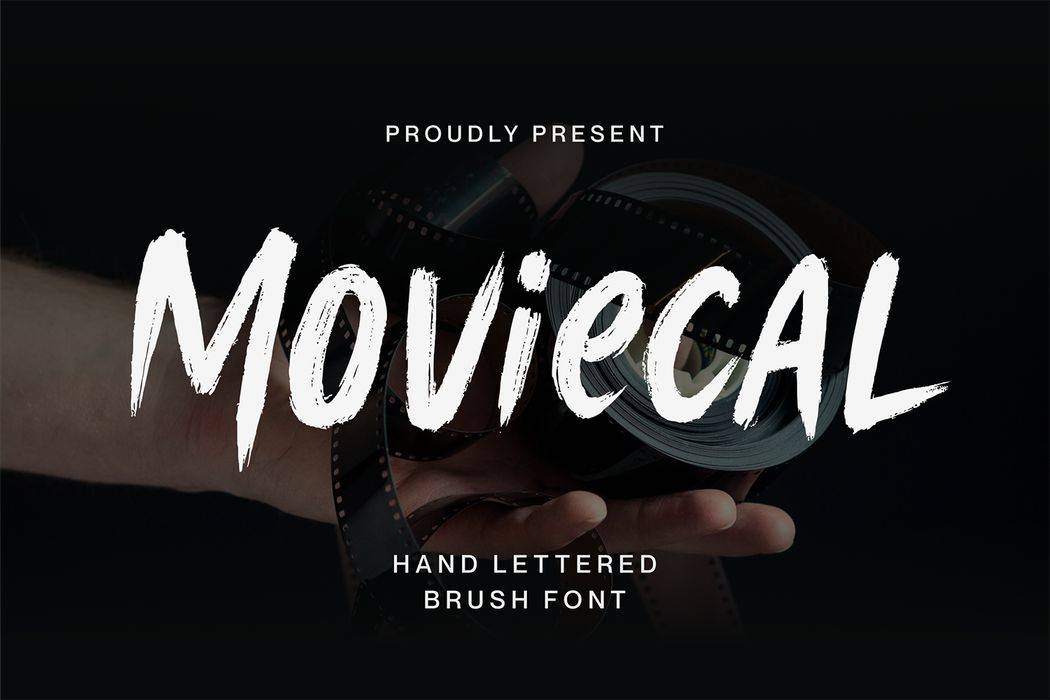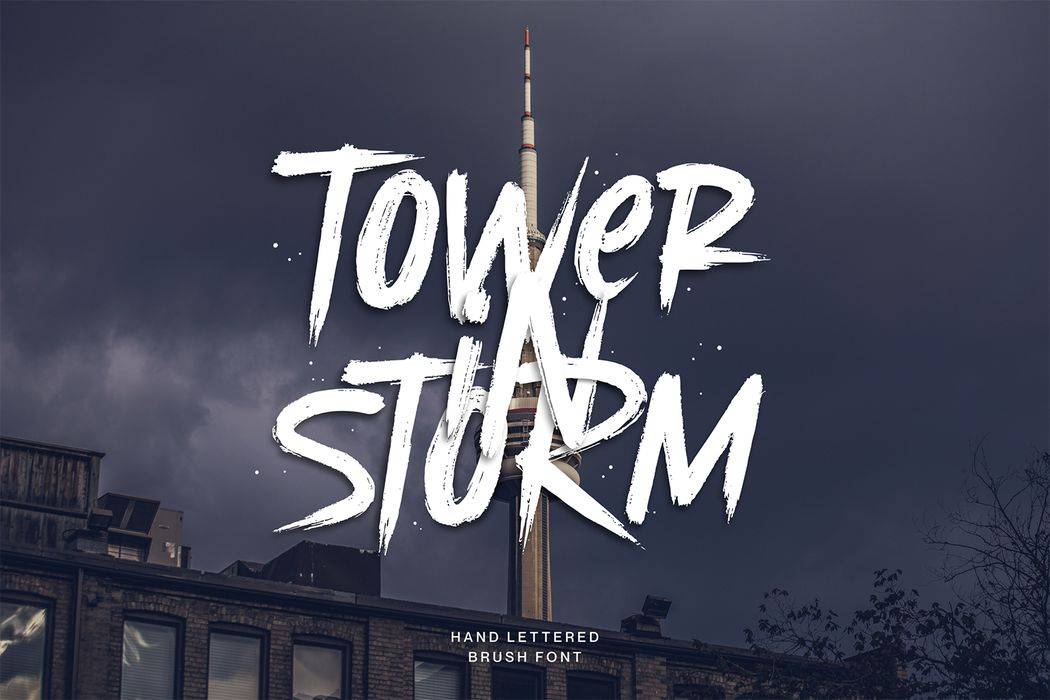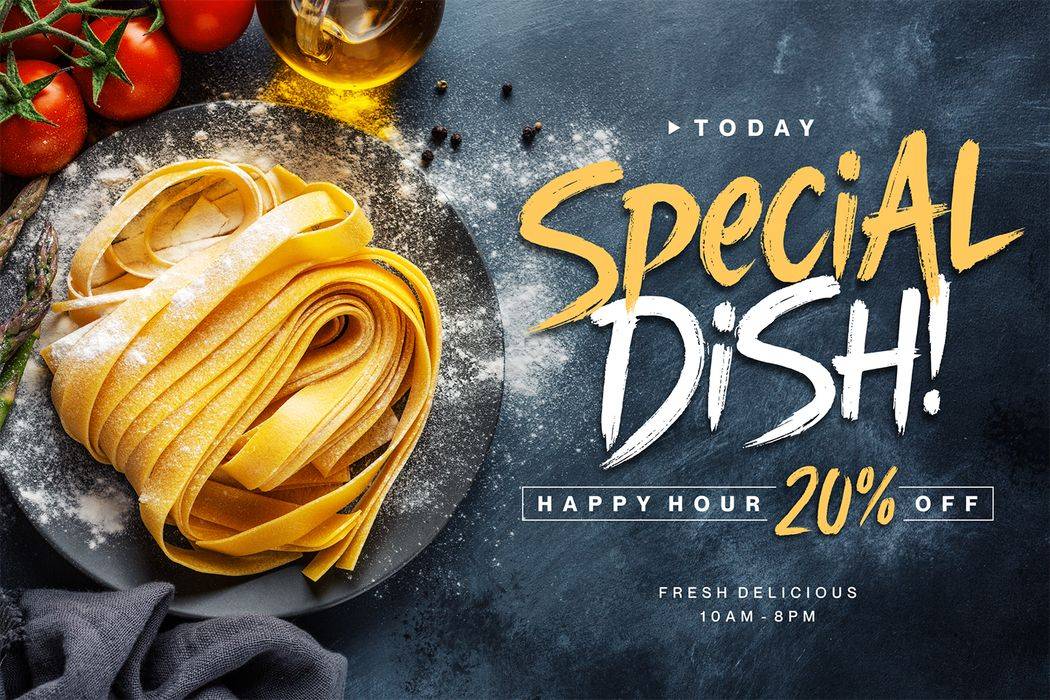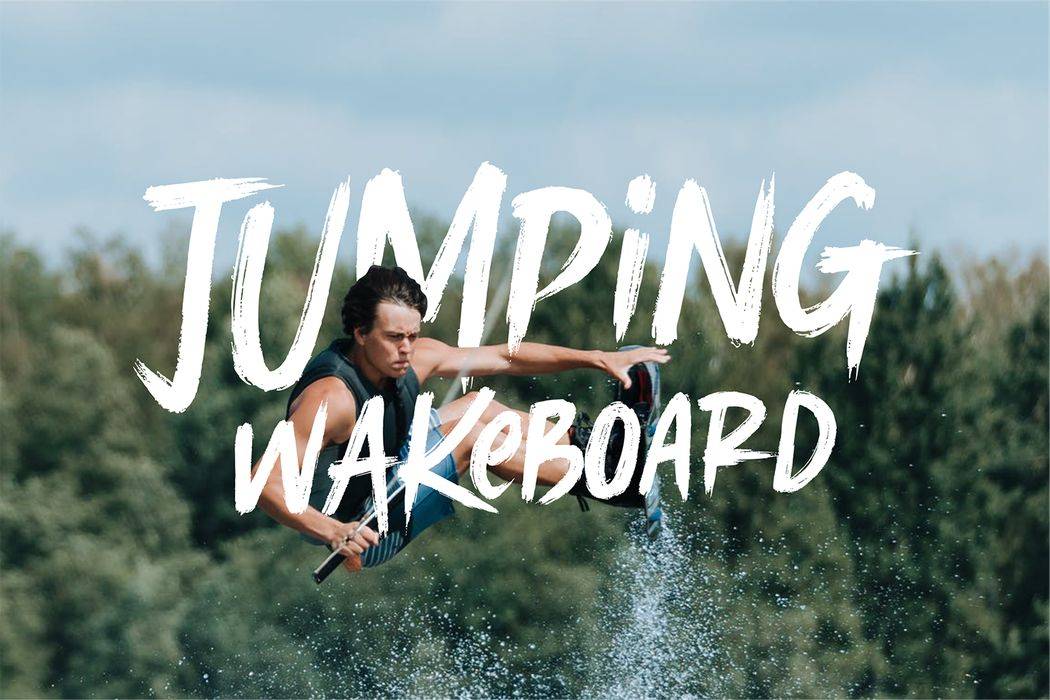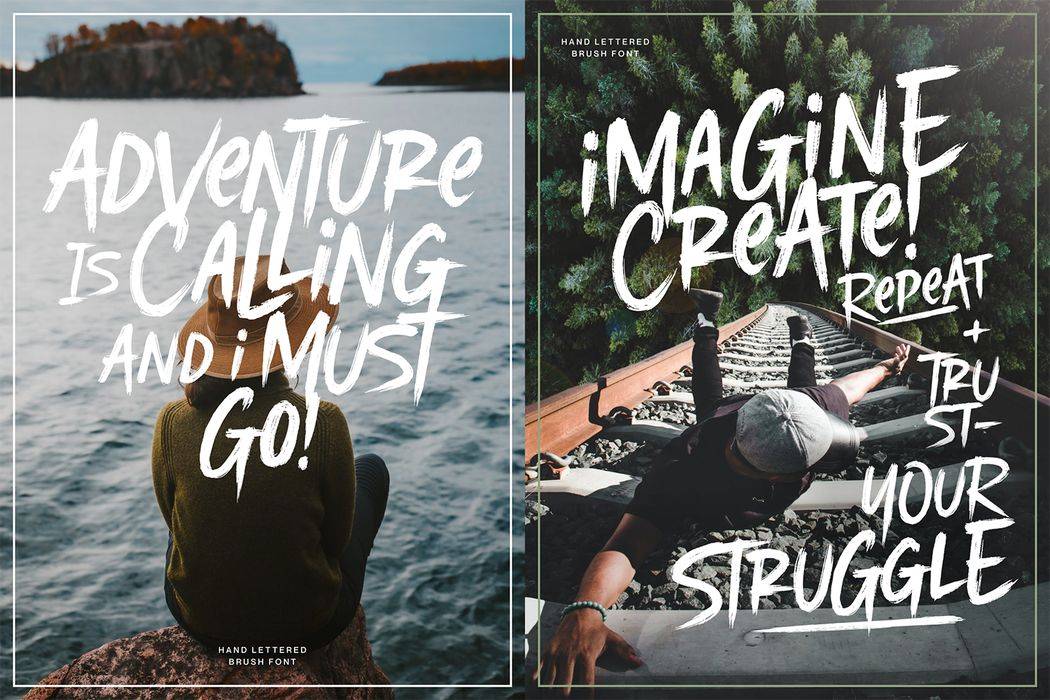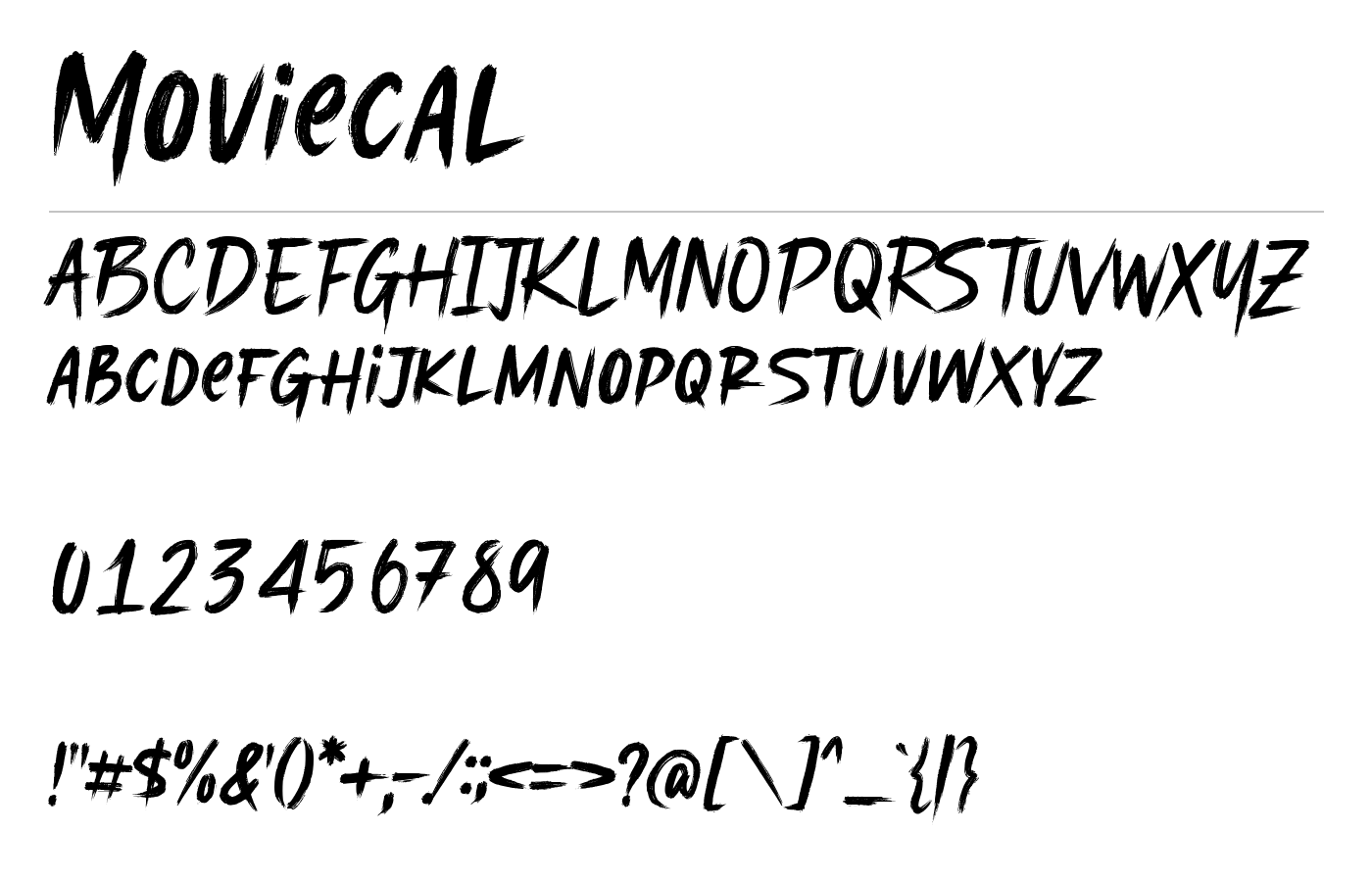
Moviecal is a lively brush script font with a hand-painted, textured look that brings energy and personality to any design. Its irregular strokes and dynamic shapes make it perfect for creative, informal projects like posters, branding, and packaging where a bold, artistic impression is desired. This font captures a playful yet expressive vibe, ideal for making headlines or logos stand out with a distinctive, handcrafted feel.
Moviecal Font
About Moviecal Font